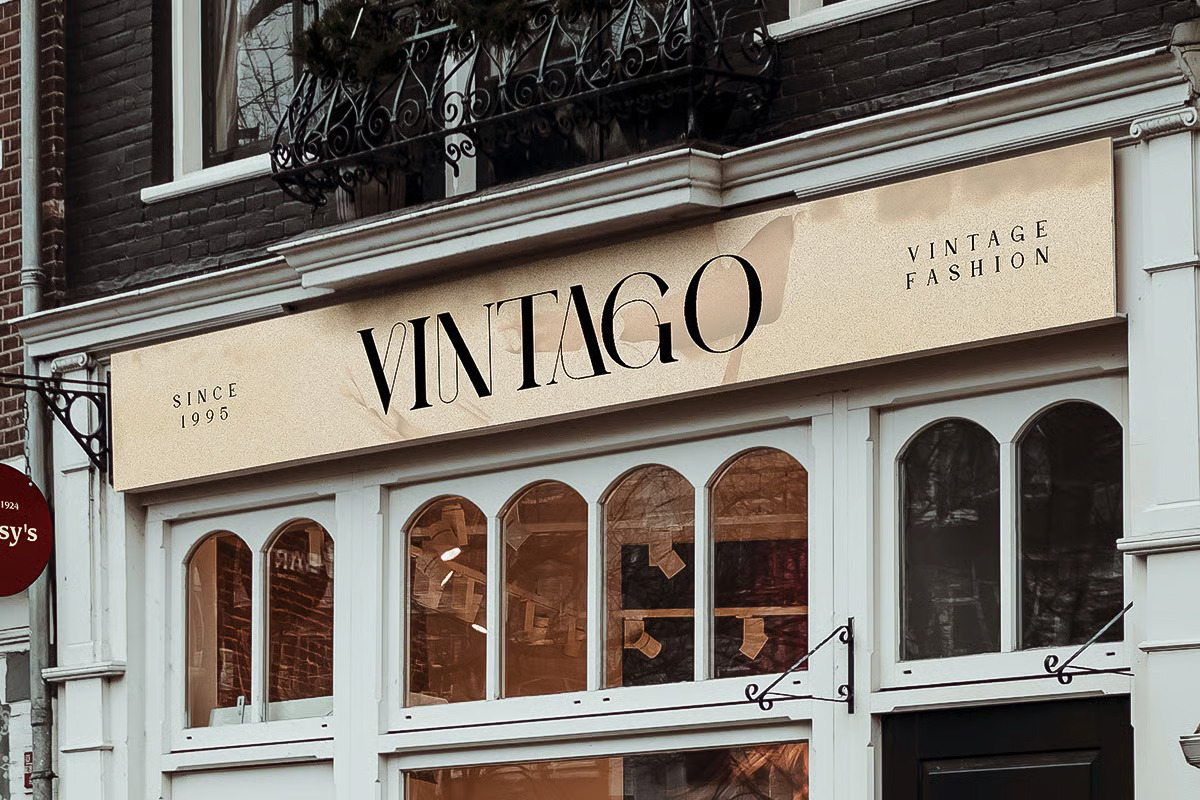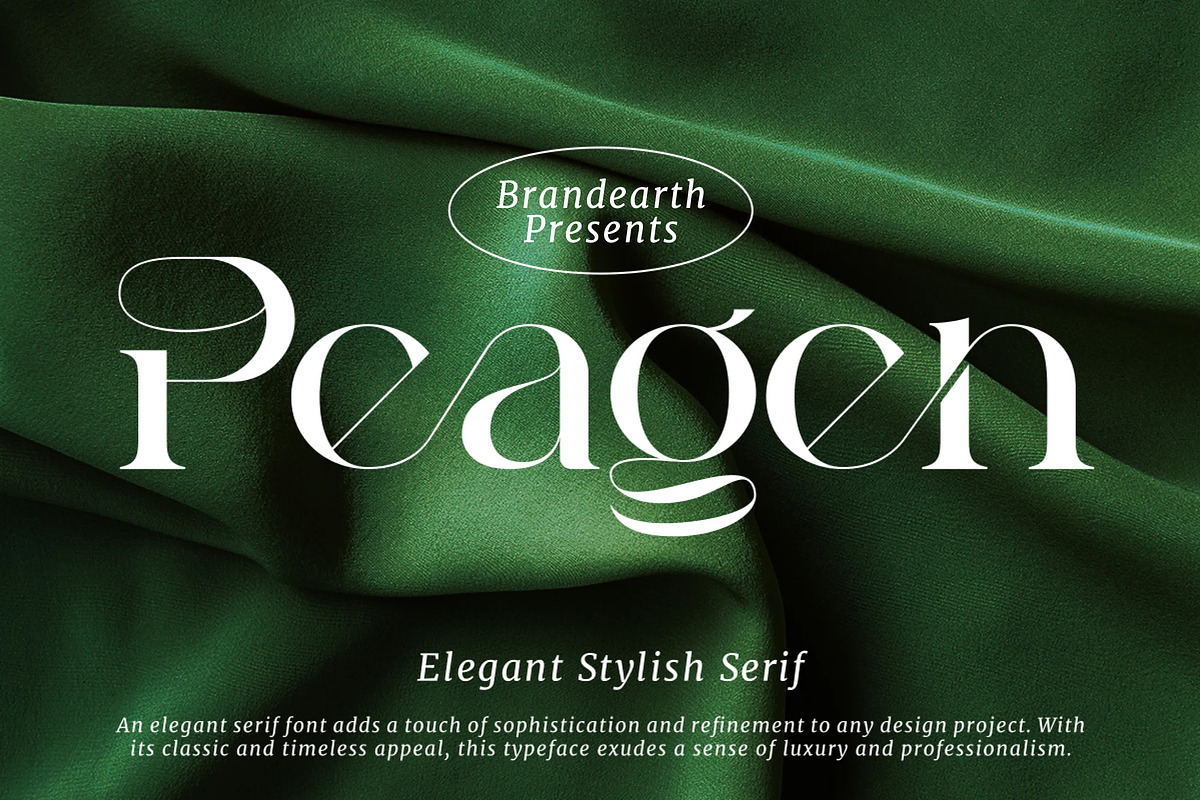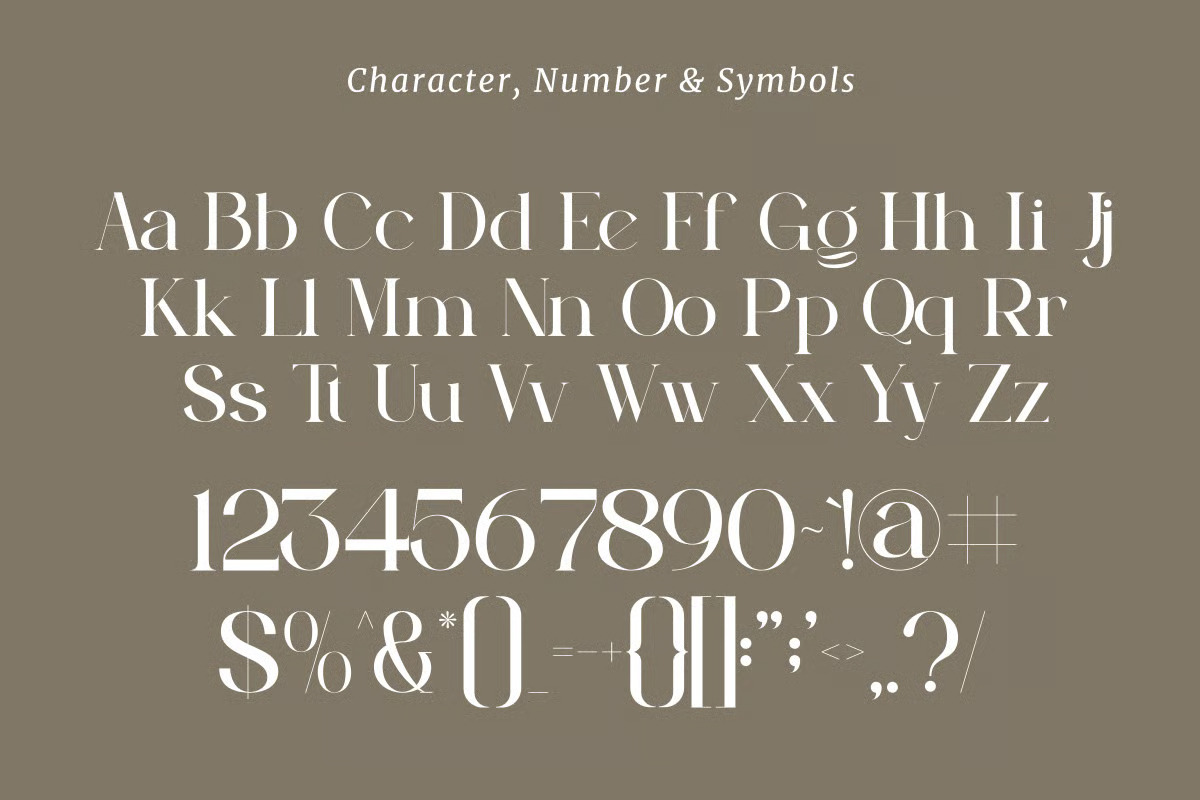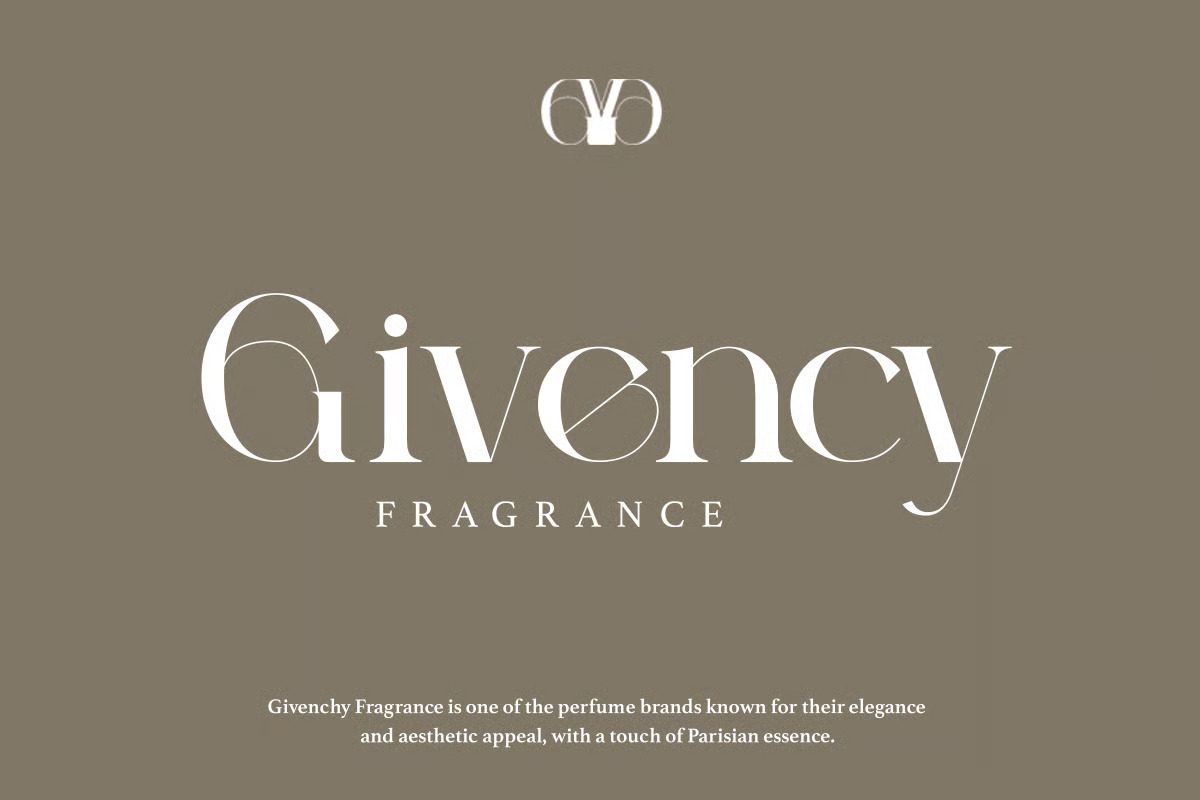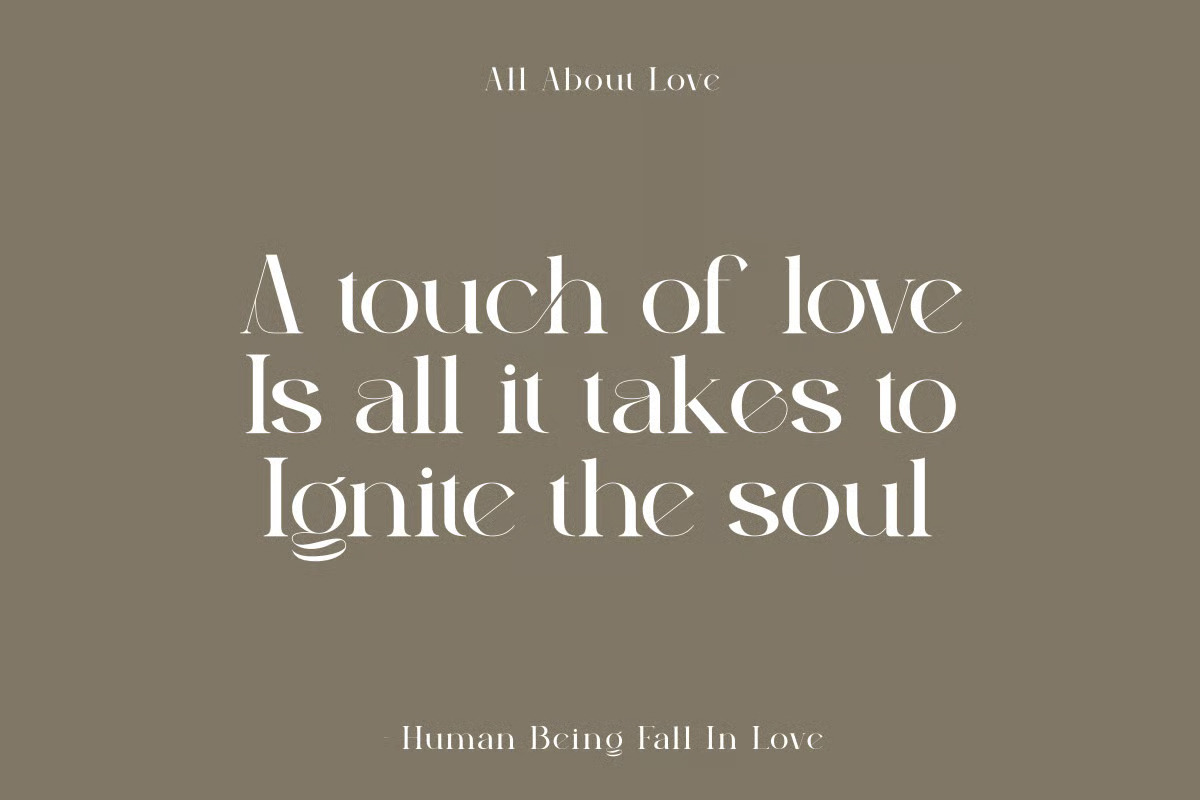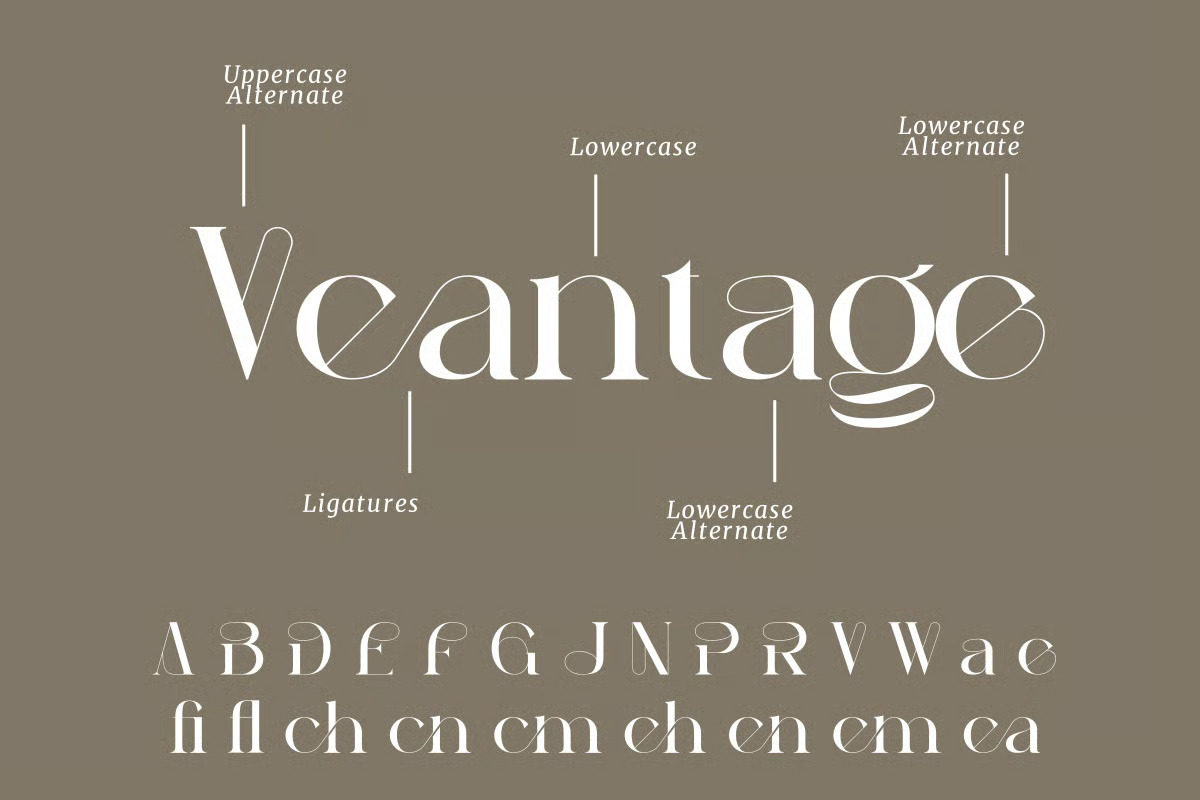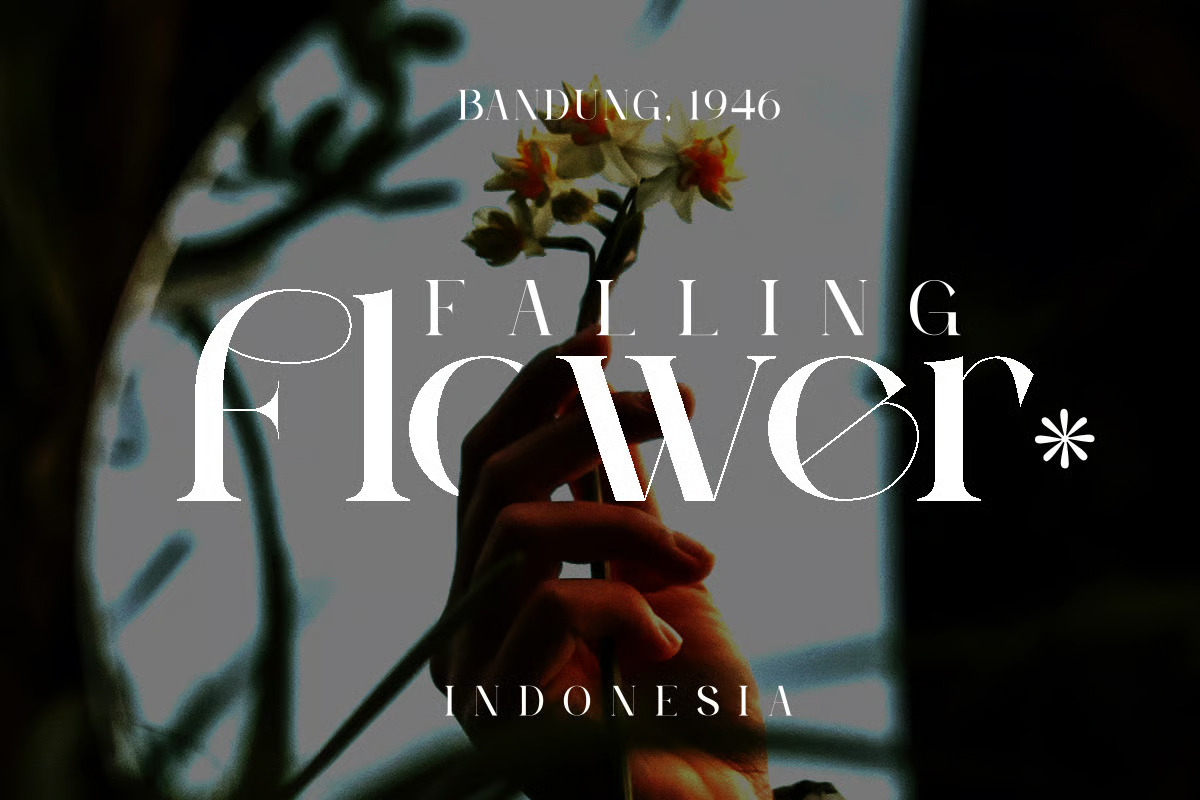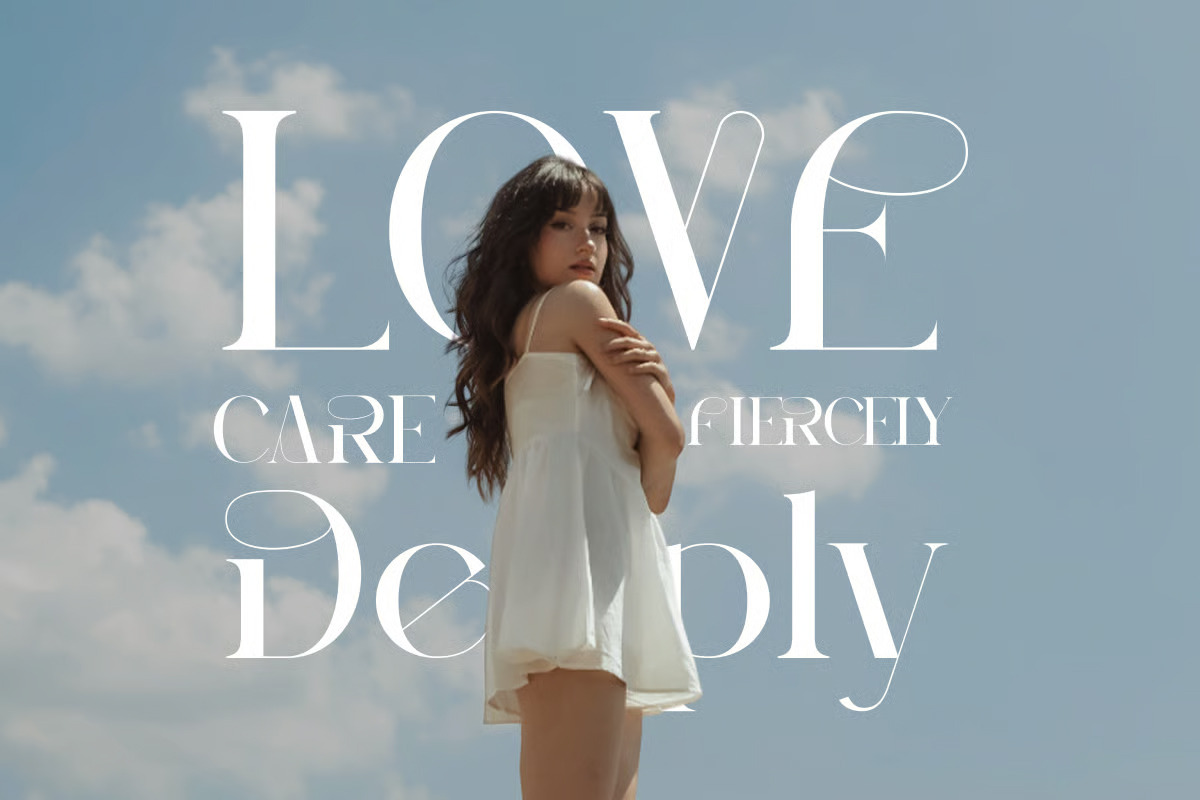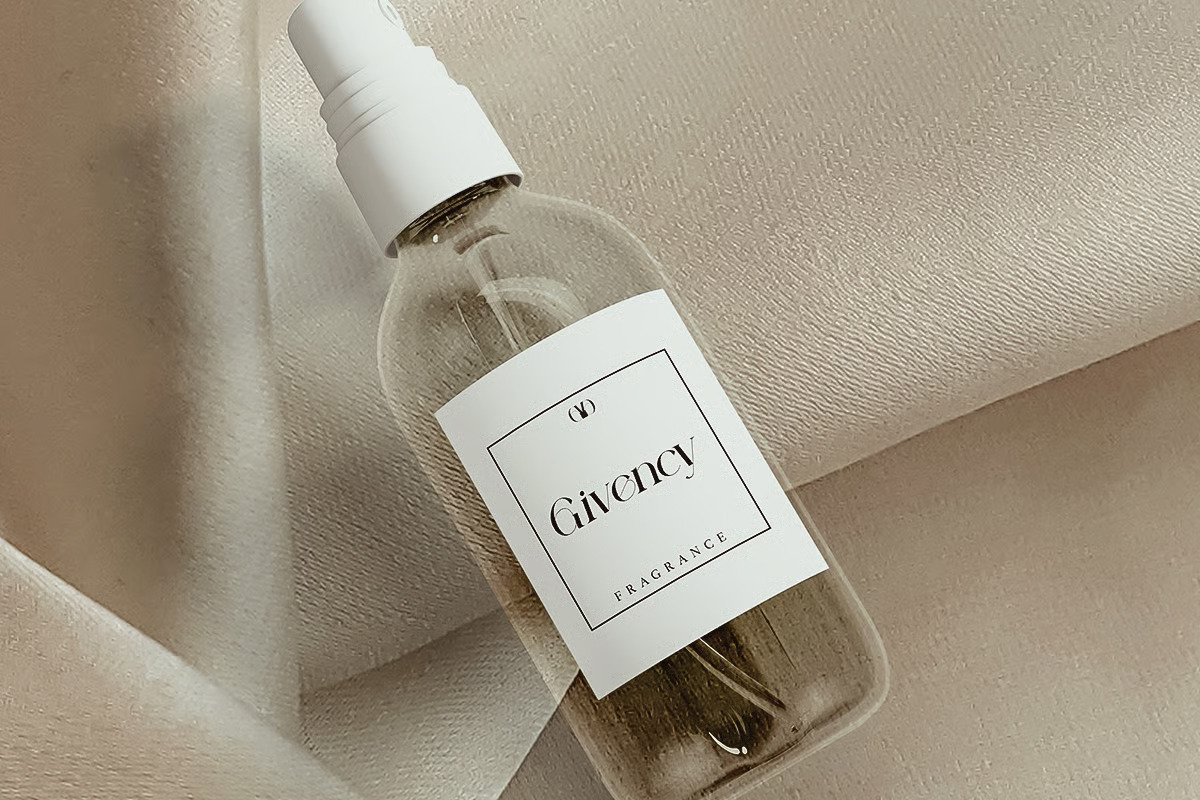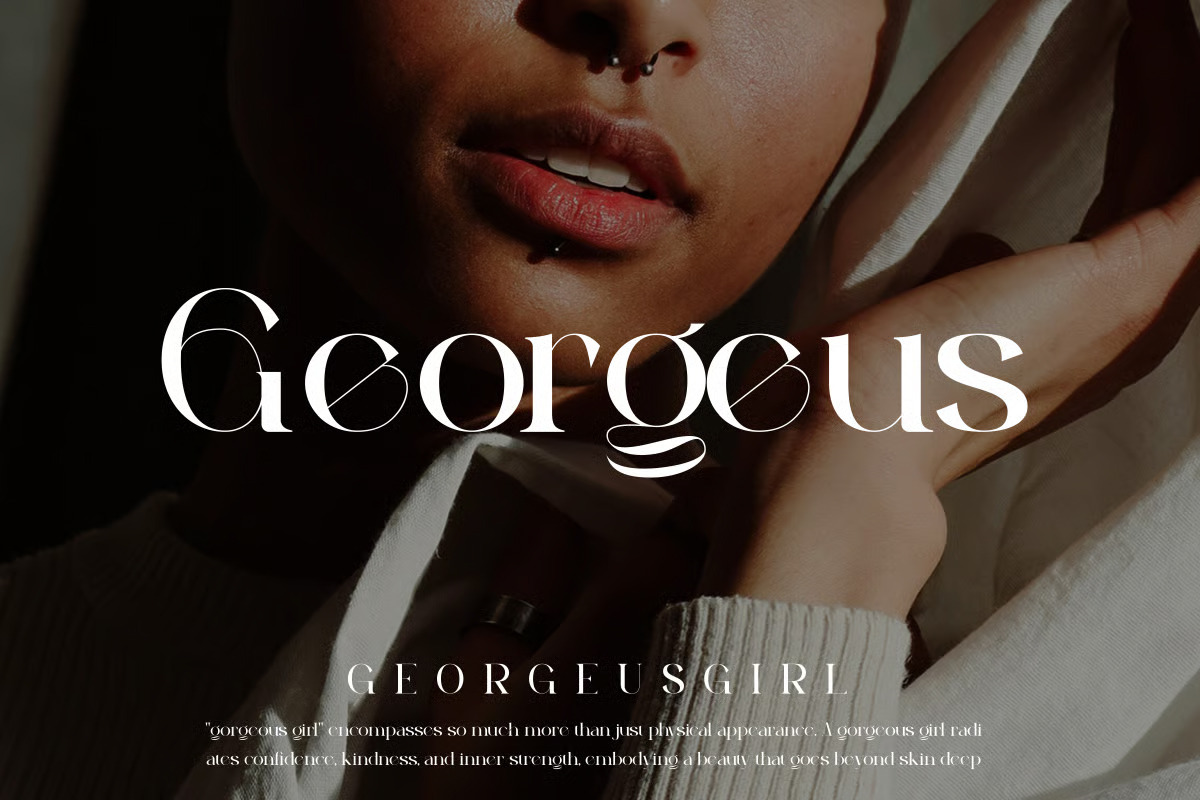
Peagen - Elegant Stylish Serif
Peagen is an elegant serif typeface that adds a touch of sophistication and refinement to any design project. With its classic and timeless appeal, it exudes a sense of luxury and professionalism, making it a versatile choice for high-end branding and editorial work.
The letterforms in Peagen are crafted with graceful contrast, stylish ligatures, and a refined structure that gives the typeface a polished and distinctive appearance. Its elegant curves and sharp details bring a sense of prestige, perfect for fashion branding, magazine headlines, and luxury packaging.
With its sophisticated, high-contrast design, Peagen bridges the gap between classic serif tradition and modern editorial style. It provides a touch of luxury while remaining versatile enough for a wide range of creative and commercial projects.
Ligatures & Alternate
Numeral & Punctuations
Perfect For: luxury branding, fashion logos, magazine headlines, editorial design, wedding stationery, packaging labels, boutique signage, book covers, social media graphics, high-end product marketing, perfume and cosmetics labels, hotel and hospitality branding, restaurant menus, invitation suites, fashion lookbooks, jewelry branding, beauty campaigns, luxury real estate marketing, and premium lifestyle content.